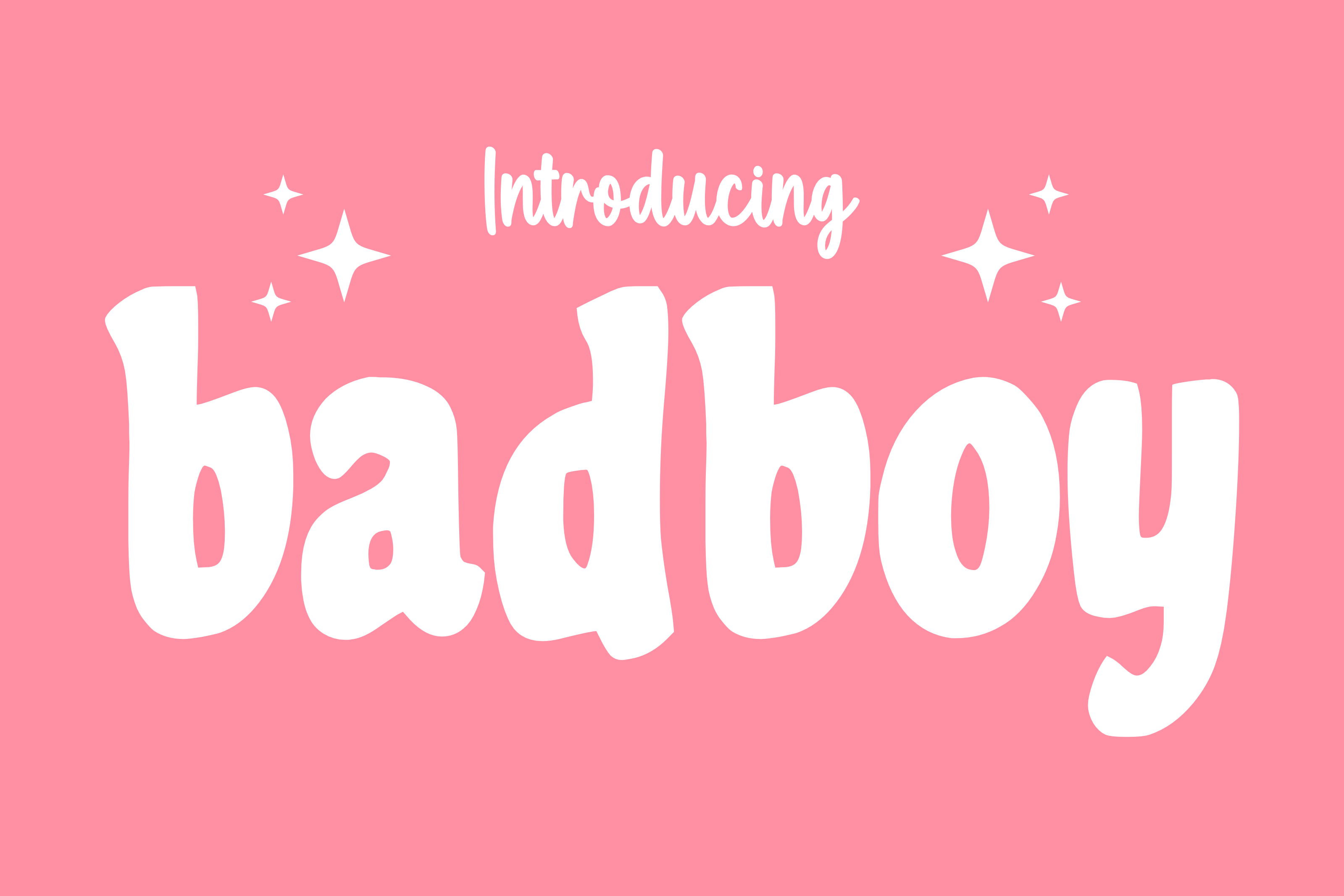
Bad Boy - Comic Font Types
Immerse yourself in the jaunty charm of the Badboy font, a delightful fusion of retro boldness and whimsical flair. Sprinkled with an infectious cheerfulness, it provides an inimitable fun accent to any design endeavor. It breathes life into book covers with its quirky vibe, ripples through posters with a resonant echo of joy, weaves magic in packaging with bold strokes, and transforms merchandise and logos into visual symphonies. Every curve and stroke of Badboy is tailored to add vibrancy to your masterpieces and more.